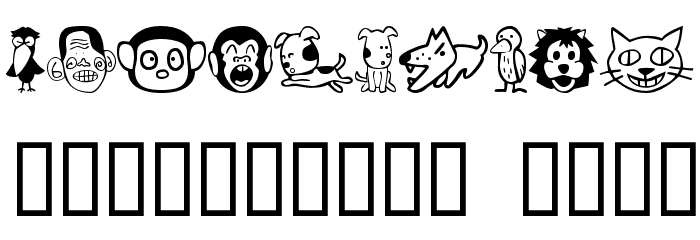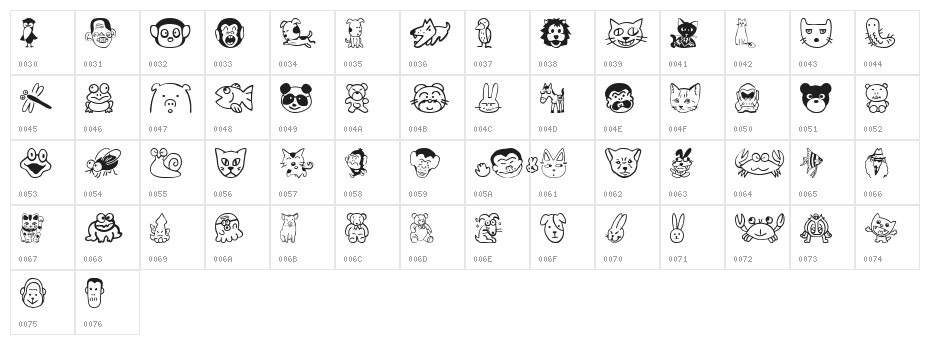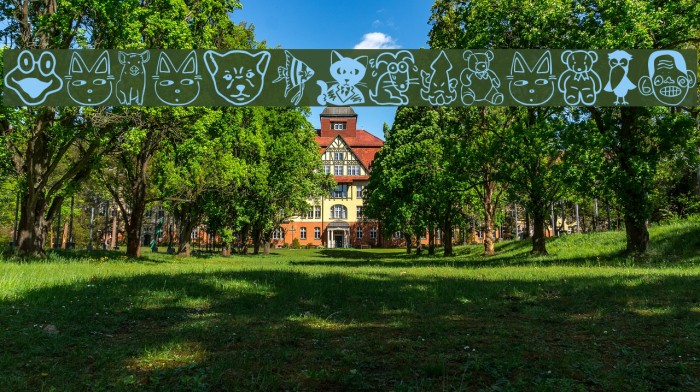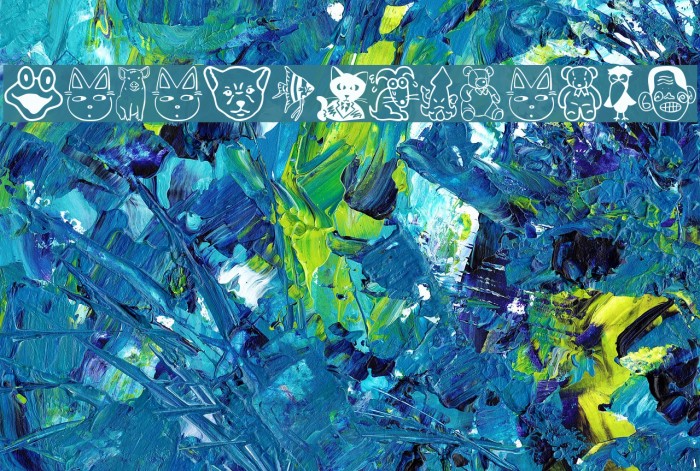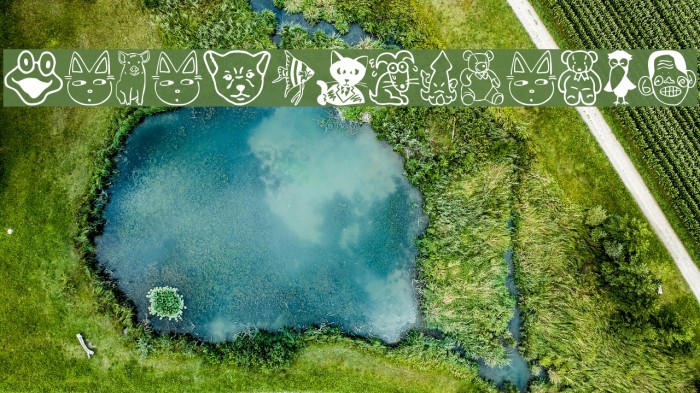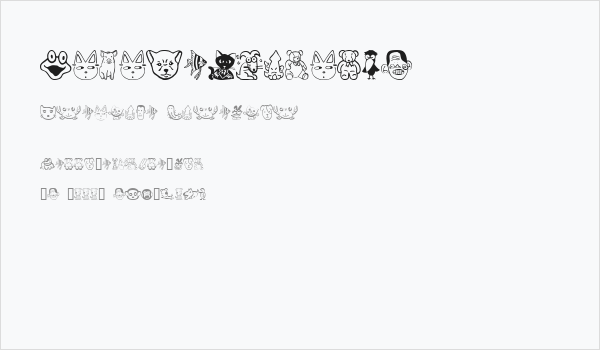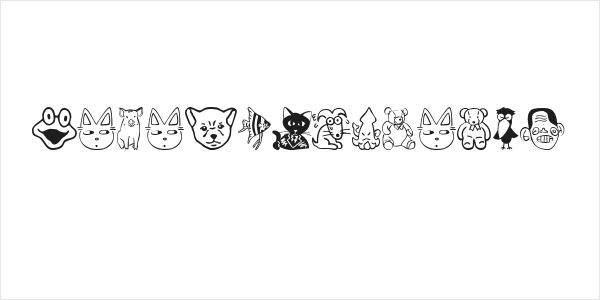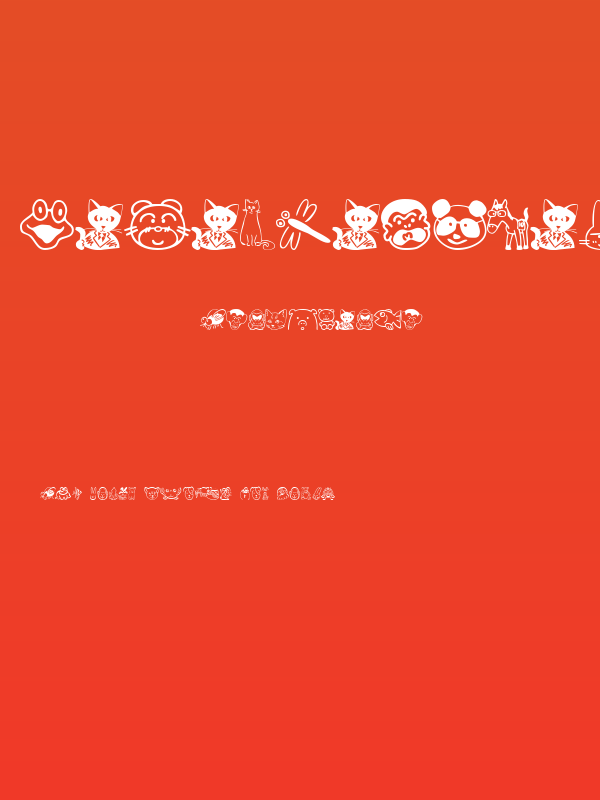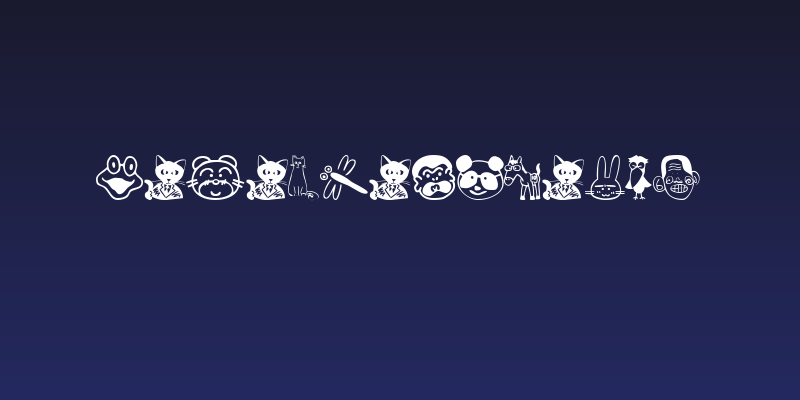
SakabeAnimal01 Font
SakabeAnimal01 Description
This is a whimsical and playful decorative font featuring a variety of charming animal illustrations. Each character is represented by a unique animal drawing, ranging from cats and dogs to frogs and fish. The style is cartoonish and lighthearted, making it ideal for projects that require a fun and engaging visual element. The characters are well-defined with clean lines and a consistent artistic style, ensuring they are easily recognizable. This font is perfect for children's books, educational materials, or any creative project that aims to capture the imagination.
| Proposed Projects | Ideal for children's books, educational materials, and creative projects needing a fun visual element. |